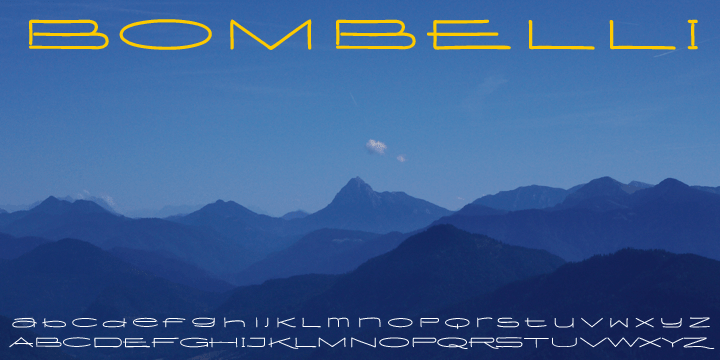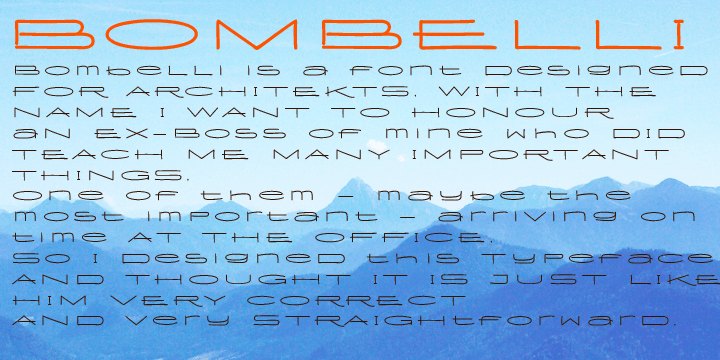
Bombelli Light Hand
Font Family by Wiescher Design
Bombelli is a font that looks like it has been handwritten by a meticulous architect in one of those hand-drawn blueprints of the old days. I chose the name to honor one of my ex-bosses -- a graphic designer-architect who taught me a lot of things when I was young and needed the money. One of the things he taught me ? and probably the most important one ? was to always be on time in the morning. He never said a word about me being late, but it worked. He taught me about being meticulous in detail and many other things I only appreciated much later. This clear and straightforward font deserves bearing his name.